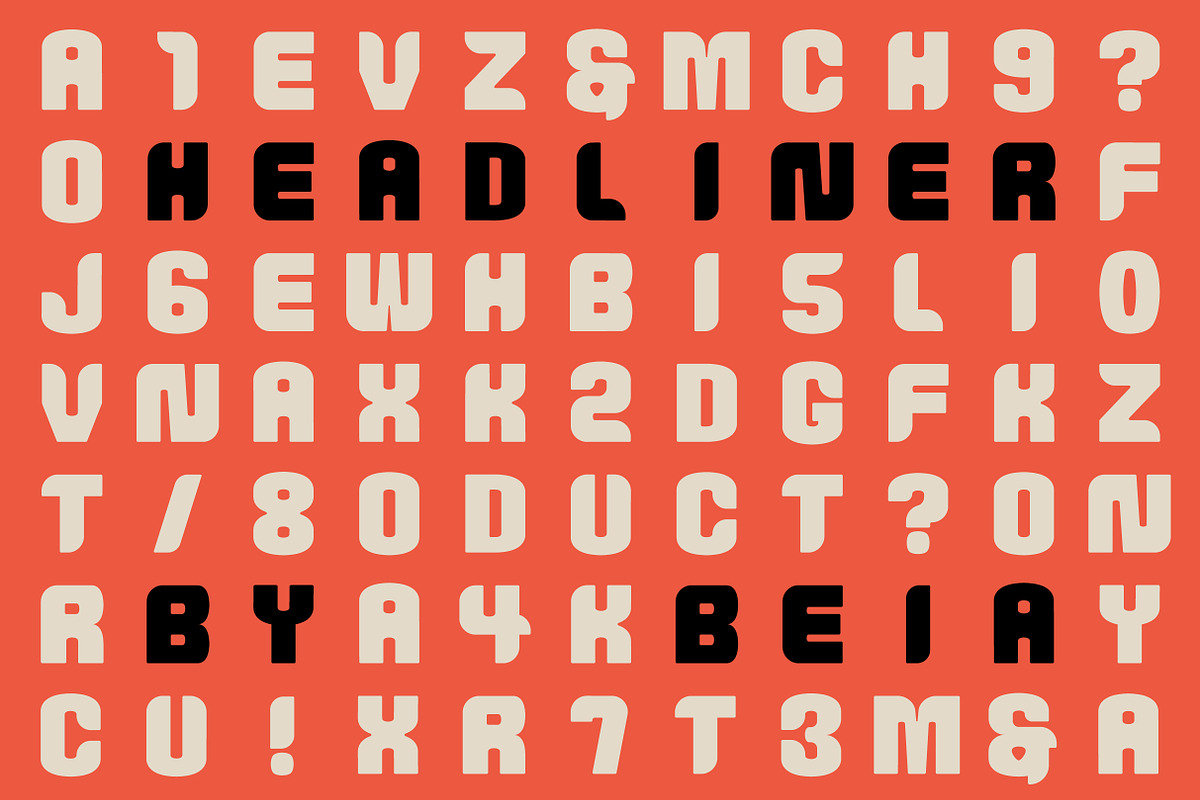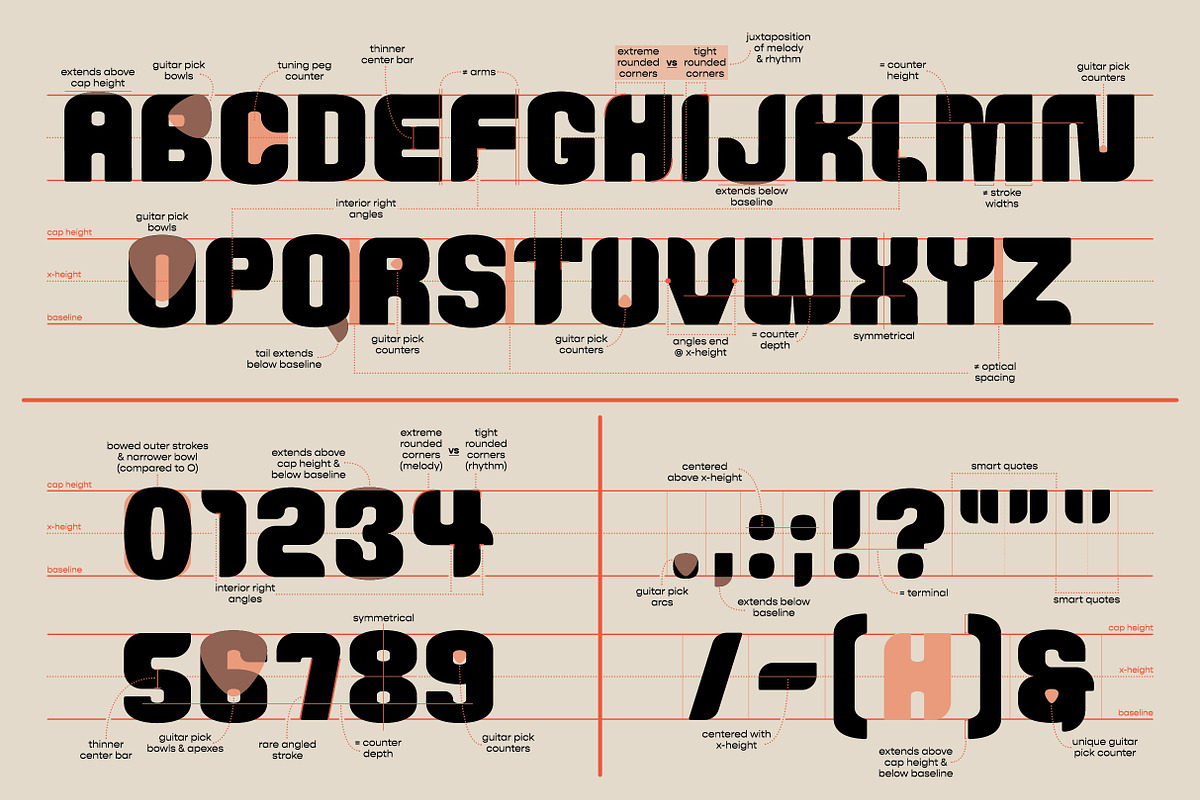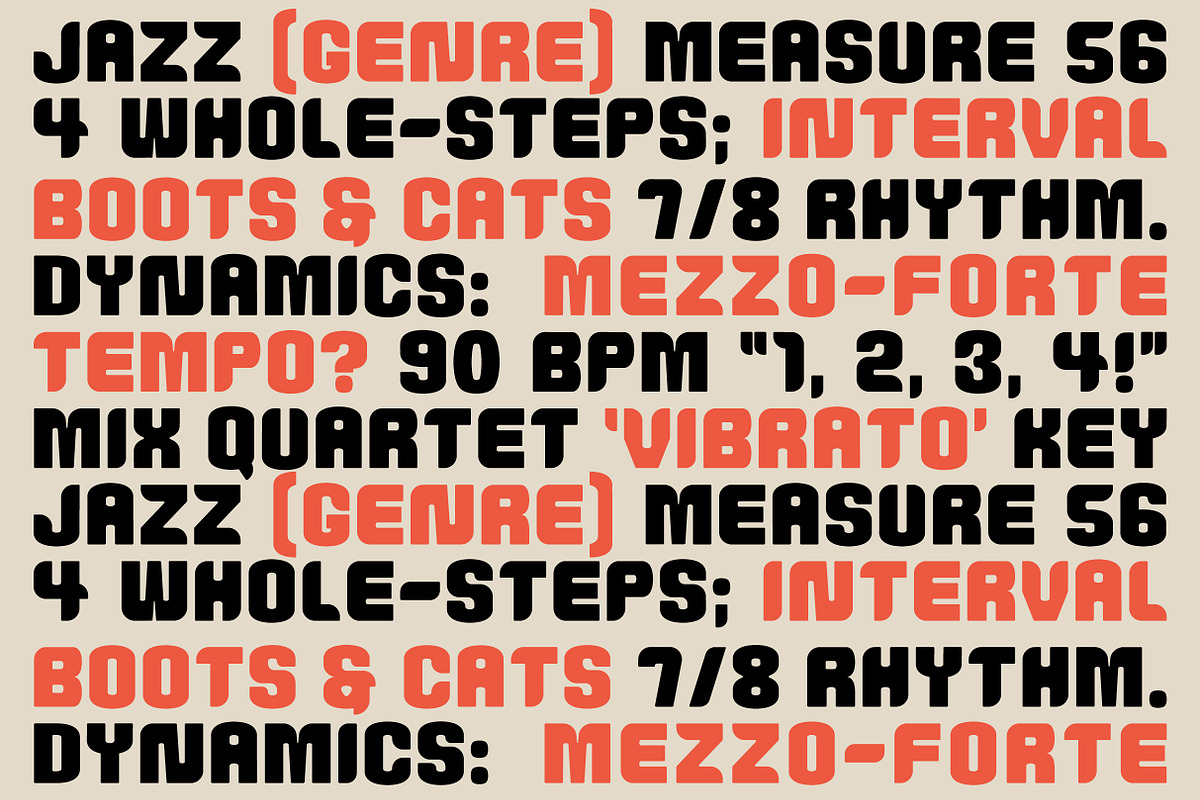
Headliner
Headliner: the star of the show! Headliner is the typeface for all things music from concert posters to album covers, band logos, or whatever strikes a chord. In connecting the music and design worlds, this typeface advertises a bold, dynamic, rhythmic feel without compromising functionality or form. Headliner truly leaves you waiting for an encore...